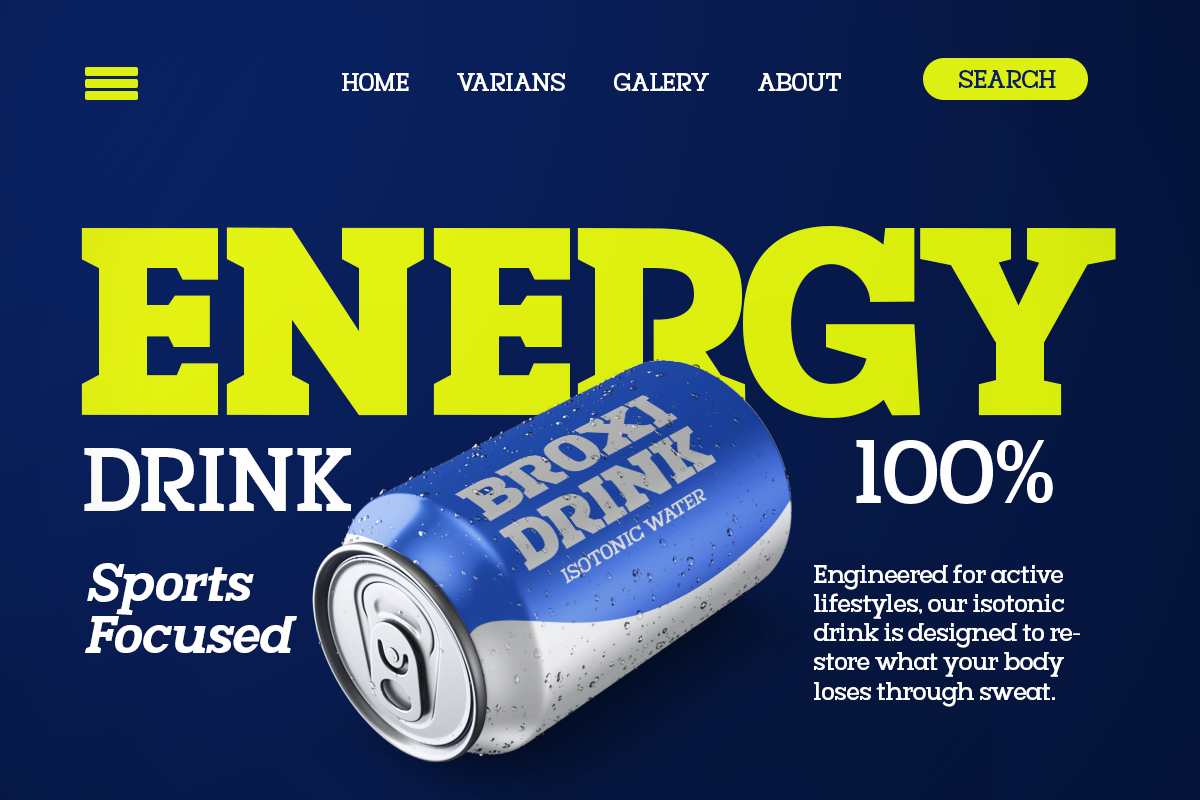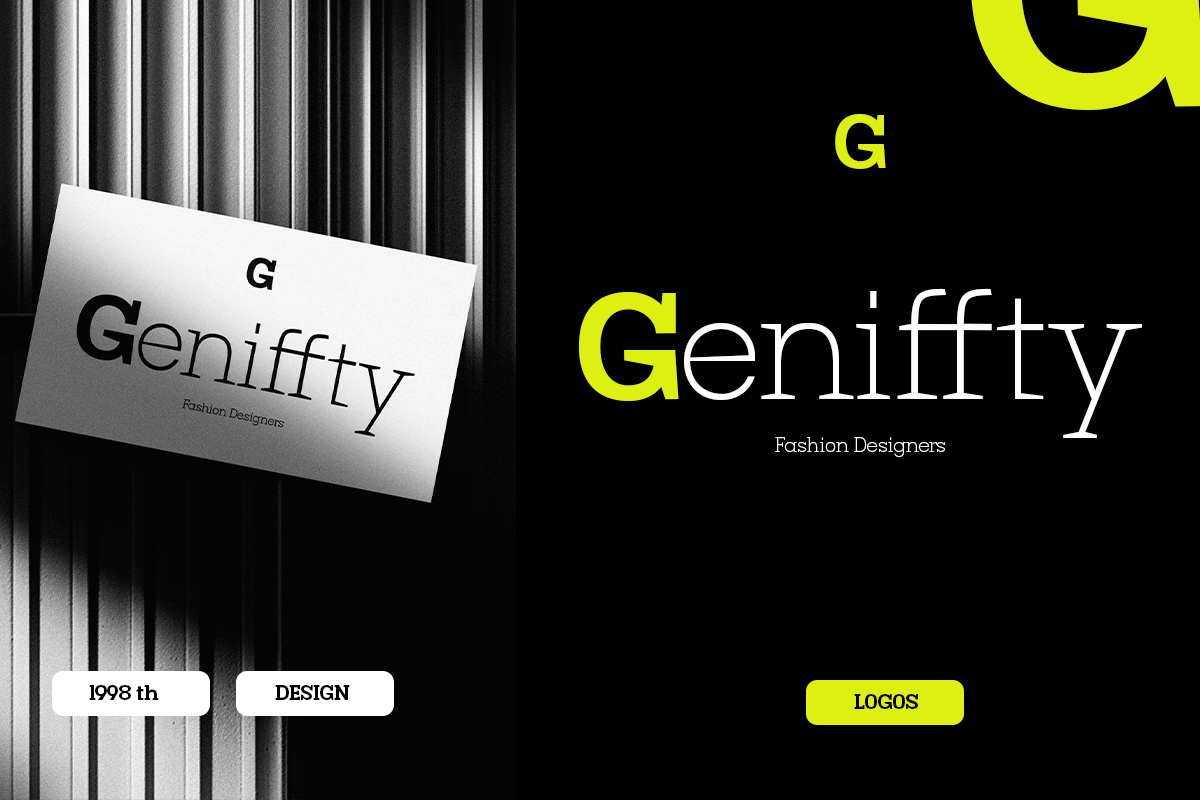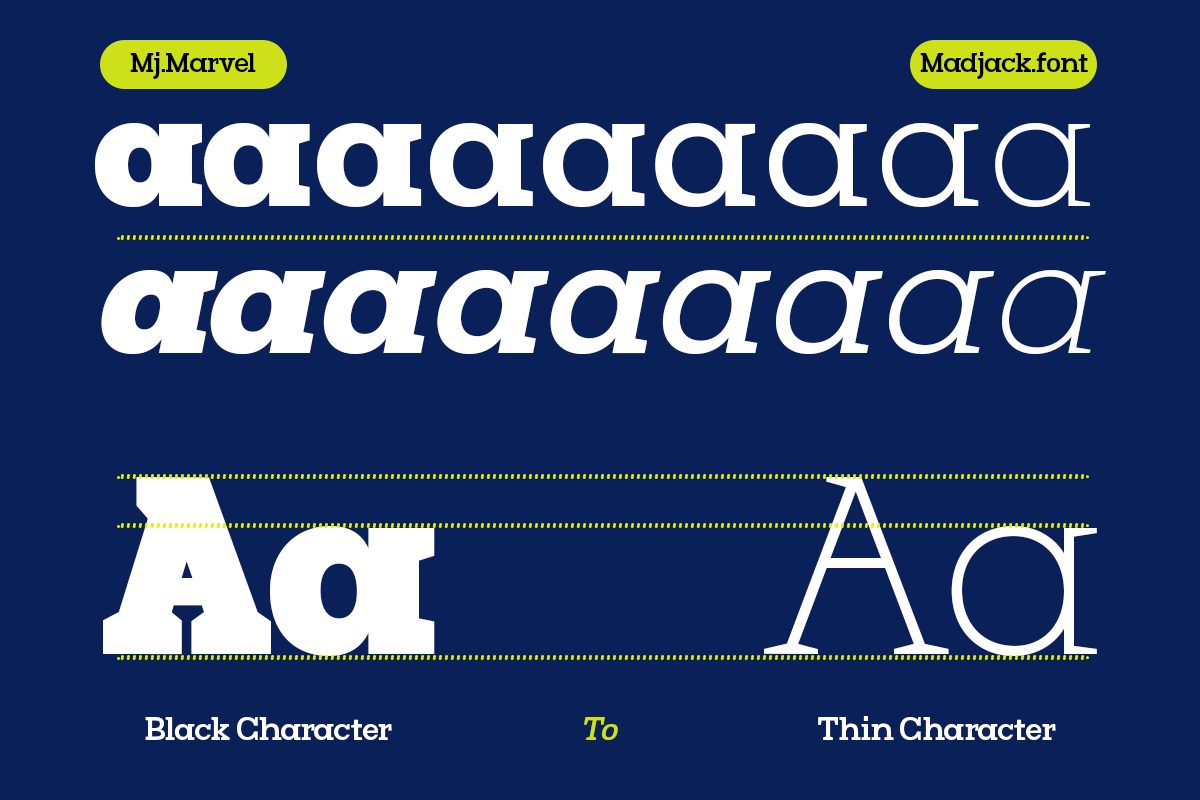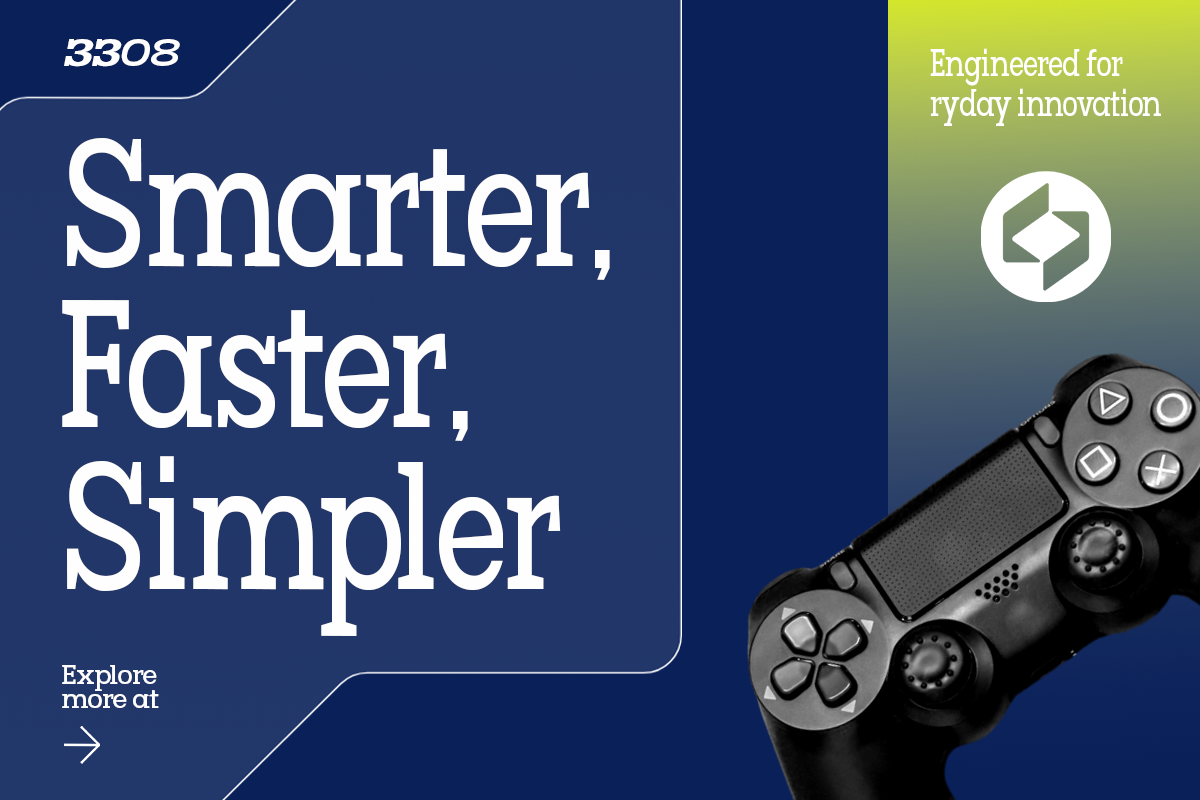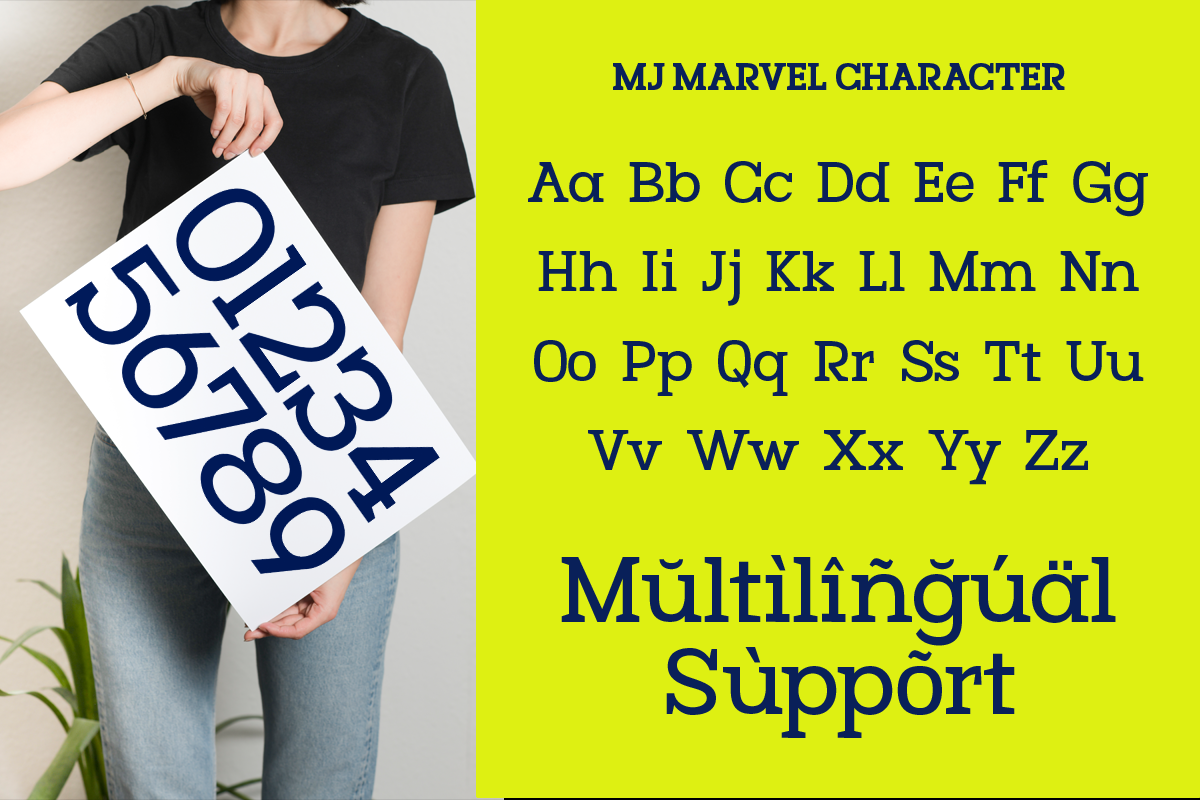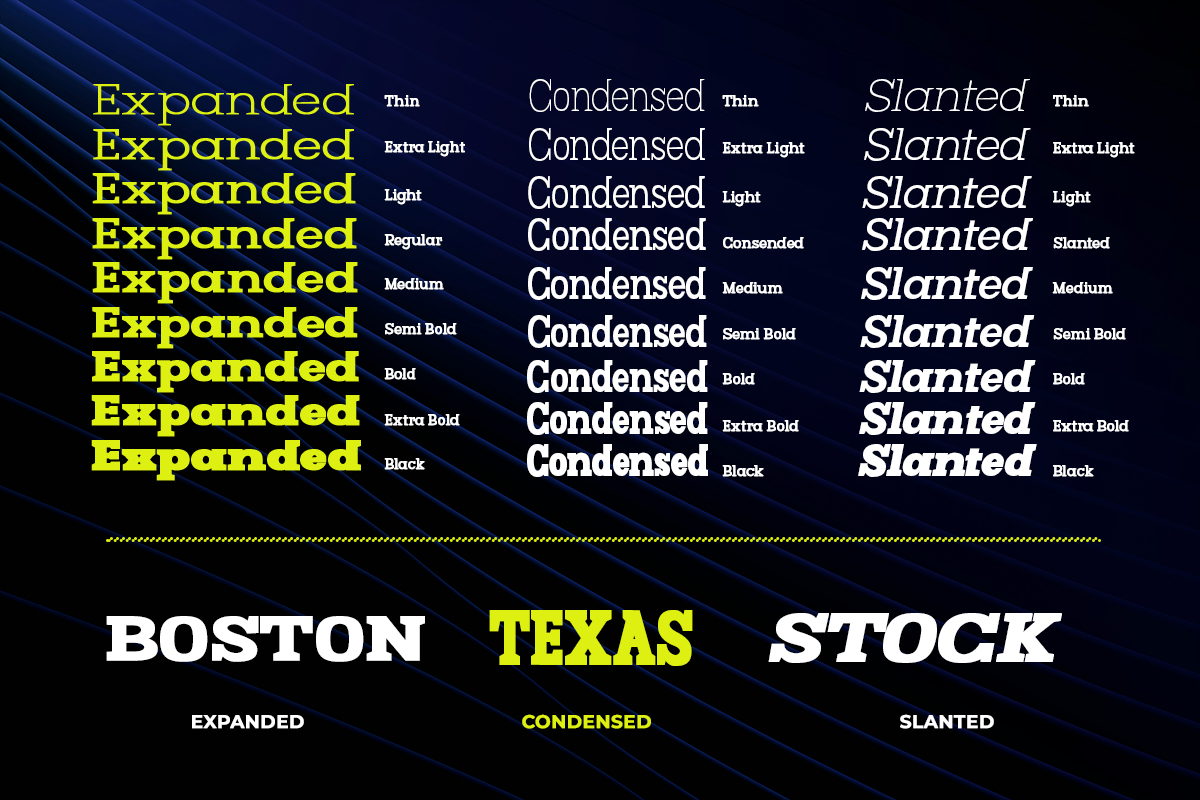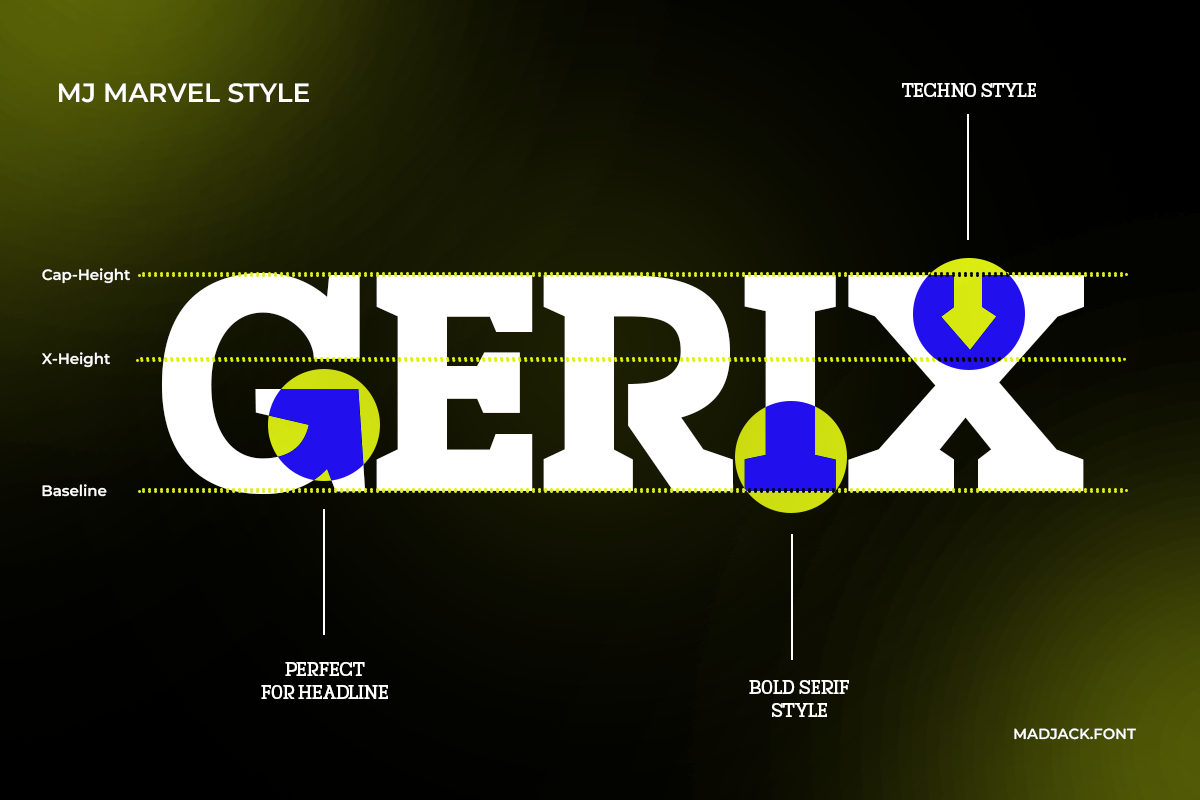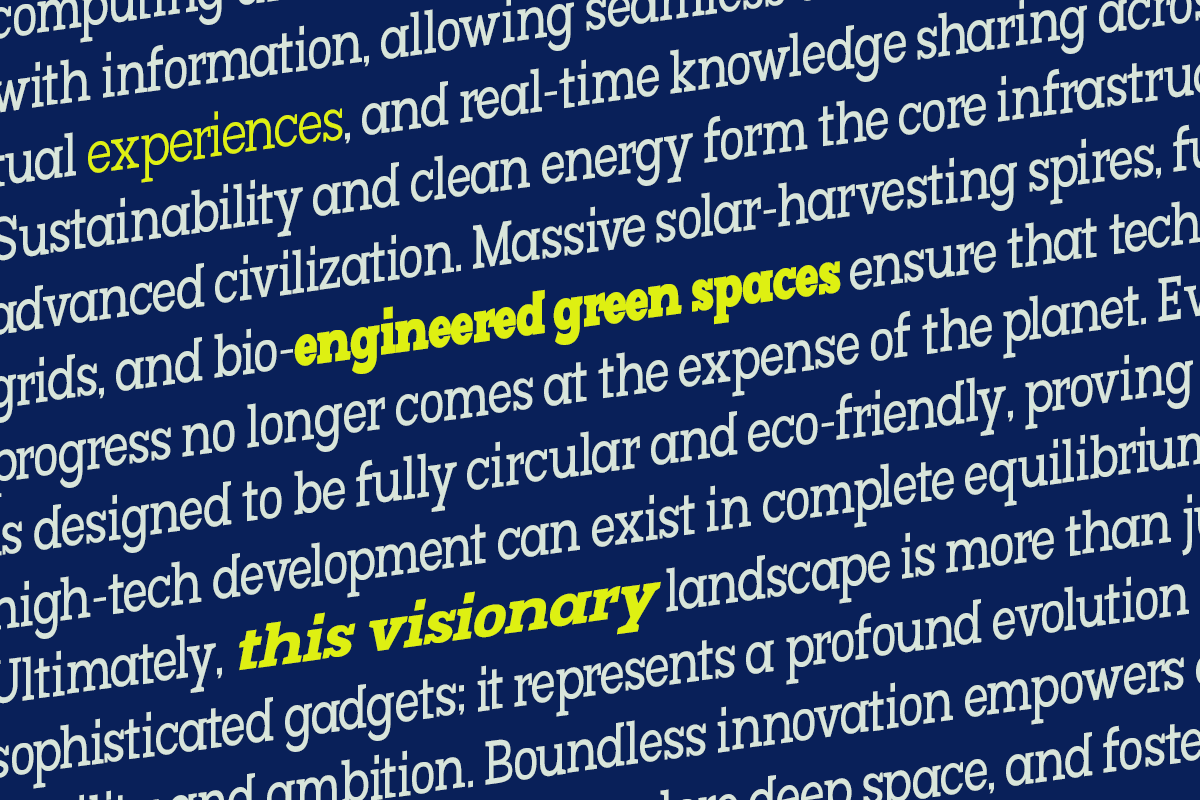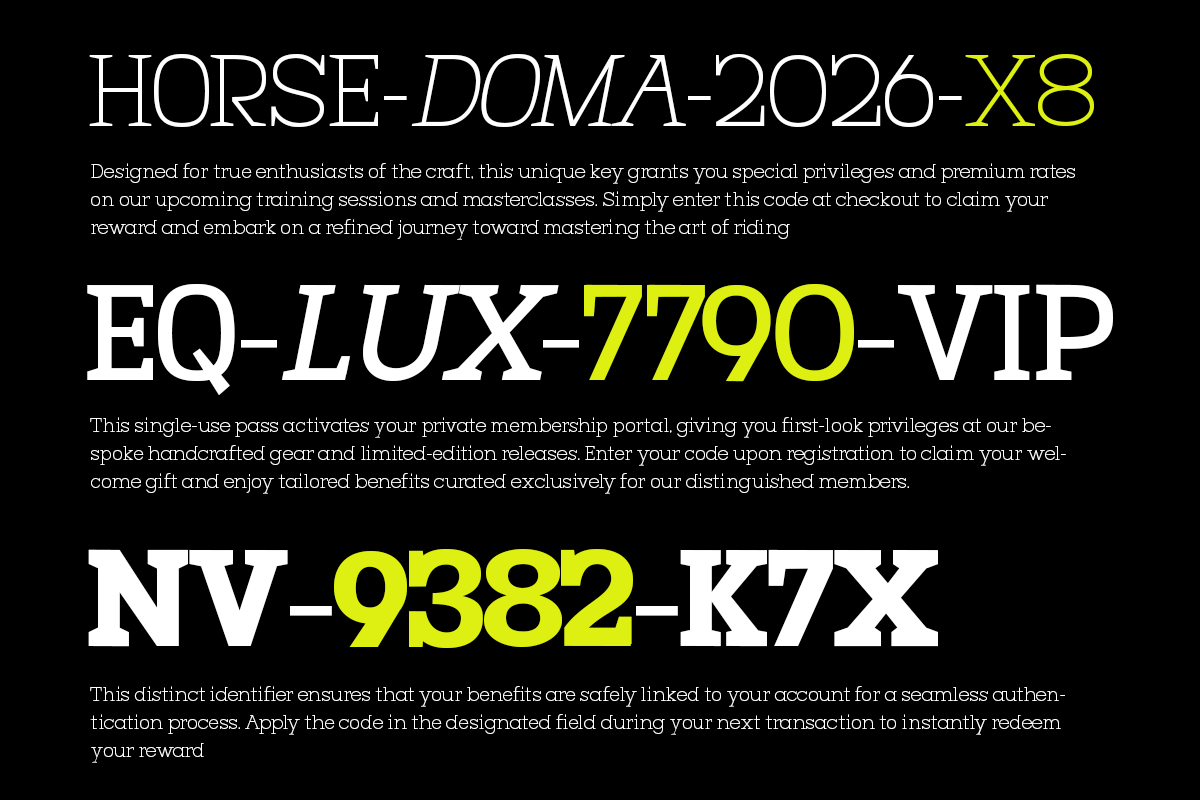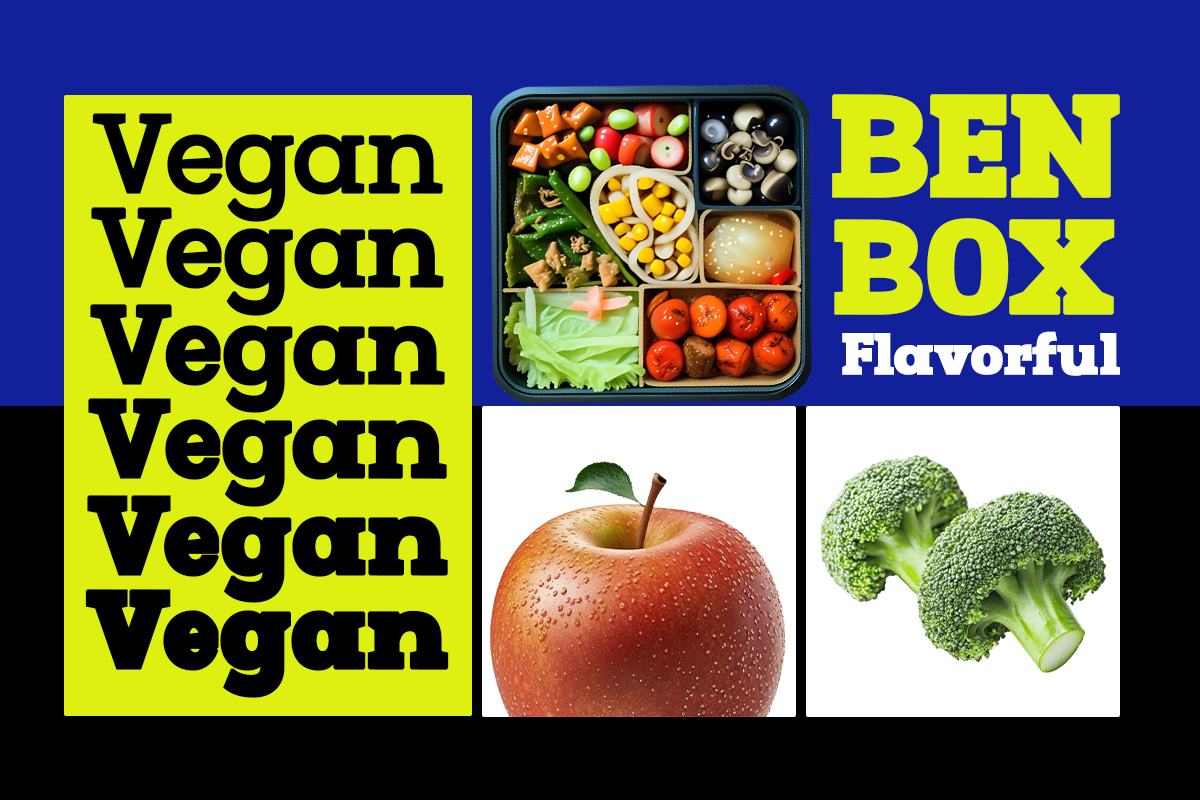
Mj.Marvel – Bold Serif
Mj.Marvel is a bold serif display typeface crafted to make a lasting impression. Combining powerful slab-serif forms with refined proportions, this font delivers a perfect blend of vintage charm and contemporary sophistication. Its bold personality and clean structure make it ideal for designs that demand confidence, elegance, and maximum visual impact.
With an extensive collection of 90 styles, including Condensed, Expanded, and Slanted variations, Mj.Marvel gives designers the flexibility to create striking typography for a wide range of creative projects. Every character is carefully designed to provide exceptional readability while maintaining a strong and distinctive presence.
Whether you're working on branding, editorial design, posters, or premium packaging, Mj.Marvel adds a bold, timeless character that instantly elevates your work.
90 Font Styles
Condensed, Expanded & Slanted Variations
Bold Slab Serif Display Design
Strong Vintage & Modern Aesthetic
Uppercase & Lowercase Letters
Perfect for Large Headlines and Display Text
Branding & Identity
Posters & Banners
Editorial & Magazine Layouts
Merchandise Design
Headlines & Titles
Sports Branding
Fashion Branding
Premium & Luxury Projects
Mj.Marvel is the perfect display typeface for designers looking to create bold, memorable, and professional typography. Its strong character, versatile family, and timeless appeal make it an excellent choice for both modern and retro-inspired creative projects.